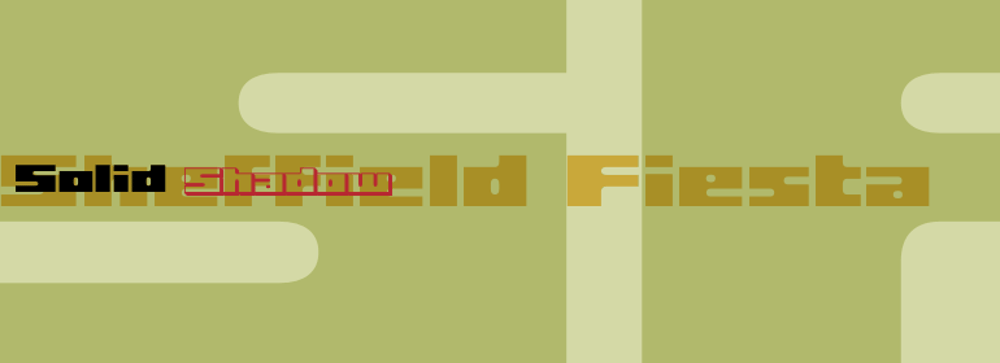
Sheffield Fiesta Font Family was designed by Rian Hughes and published by Device. Sheffield Fiesta contains 2 styles and family package options. Based on the brutalist concrete landmark nightclub in Sheffield, reportedly the largest in Europe.It is now the Odeon Cinema, between Arundel Gate and Pond Street.